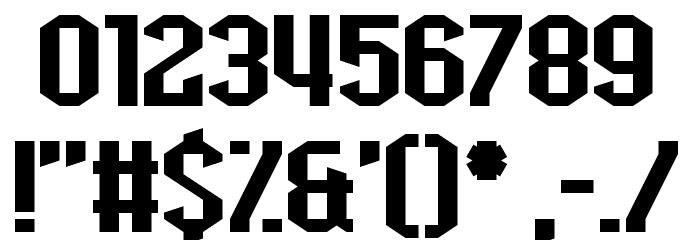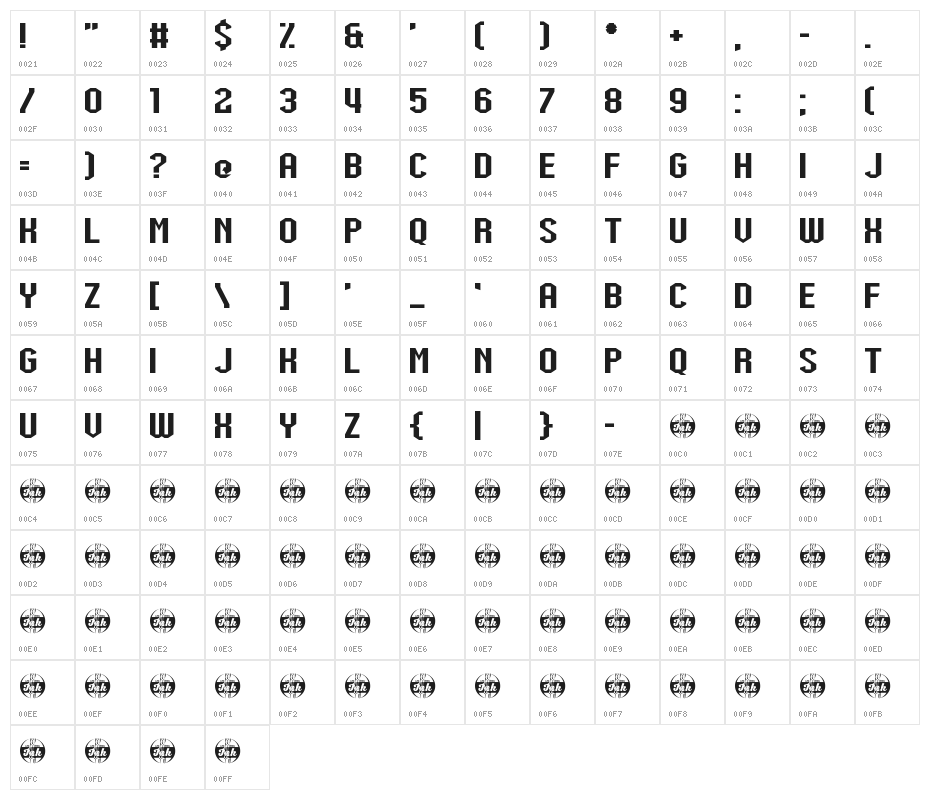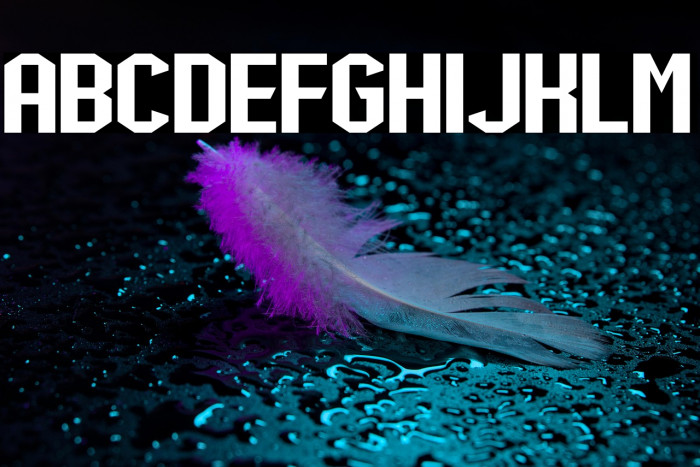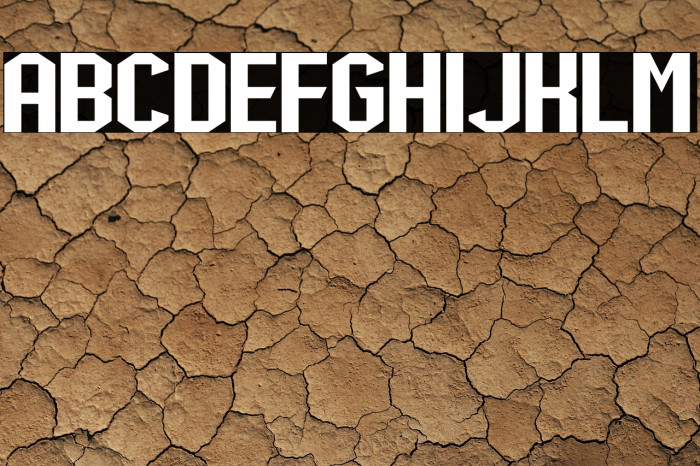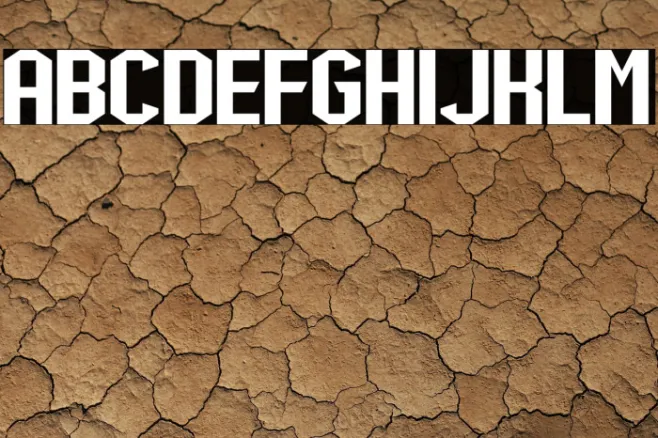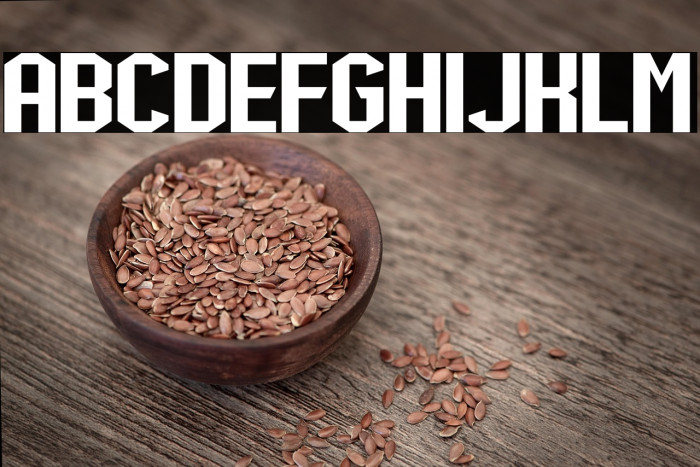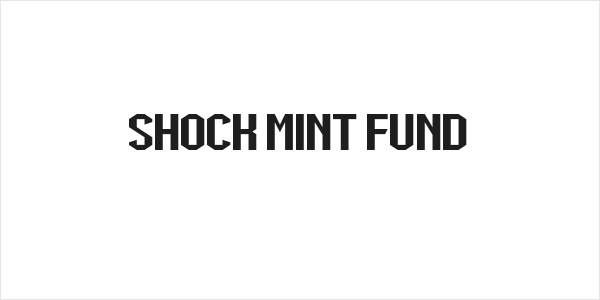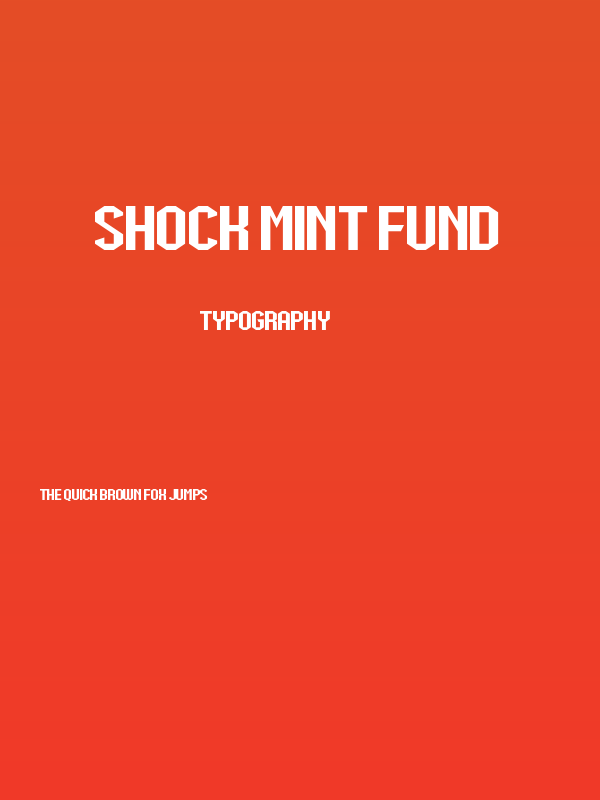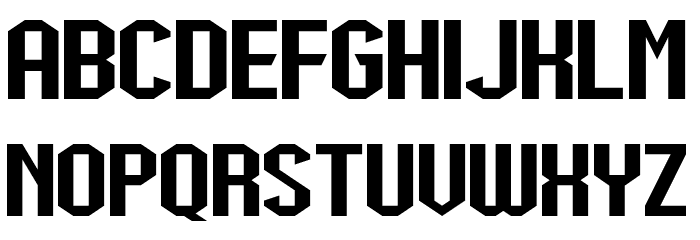
Shock Mint Fund Font
Shock Mint Fund Description
This font features a bold, geometric design with sharp angles and a strong presence. The uppercase letters are uniform in height and width, creating a cohesive and structured appearance. The characters have a distinct blocky style, with minimal curves and a focus on straight lines and sharp edges. The numbers and special characters maintain the same bold and angular aesthetic, ensuring consistency across all elements. This font is highly legible and makes a striking impact, suitable for attention-grabbing designs.